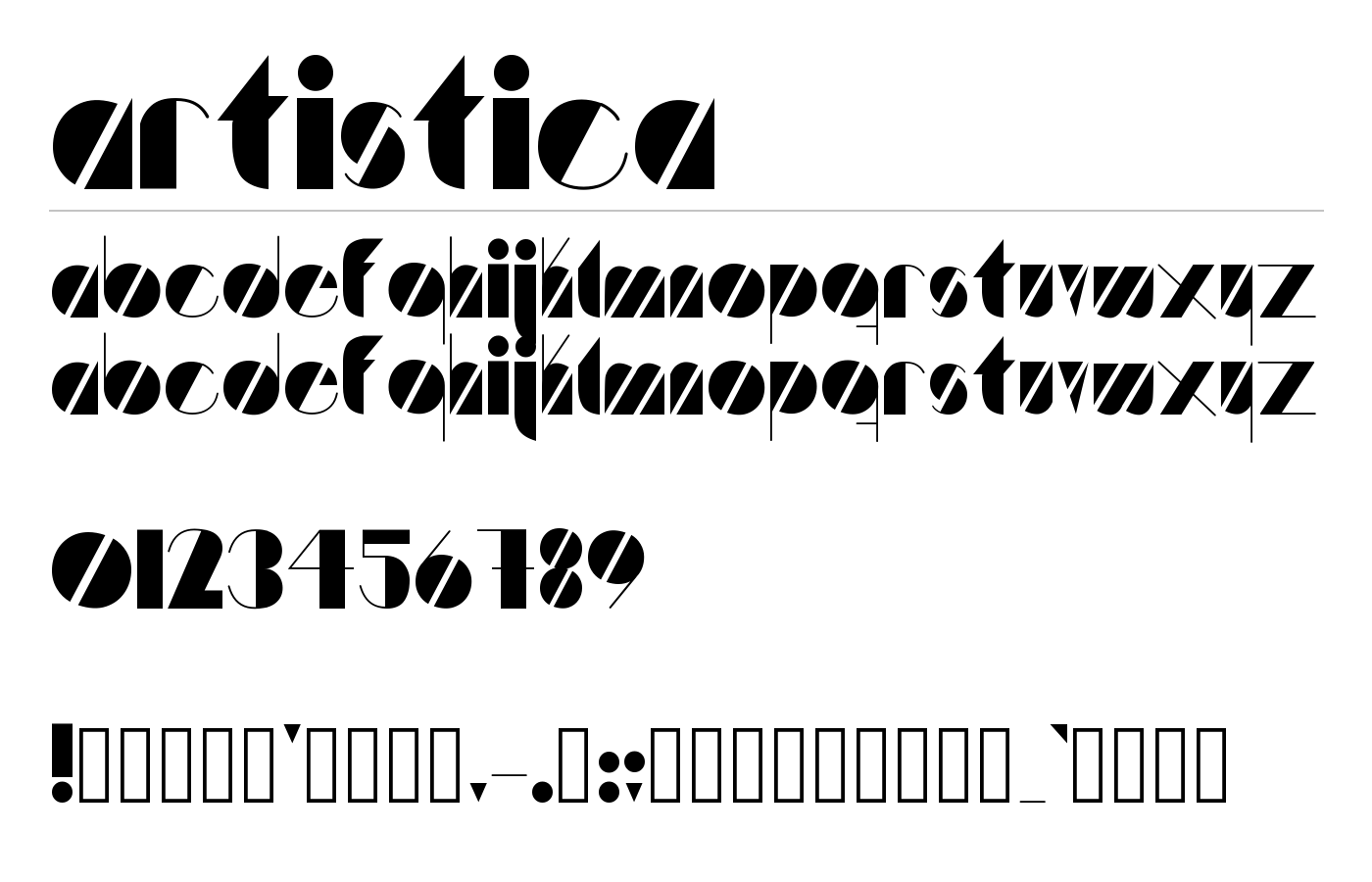
Artistica is a bold, modern display font with a striking geometric design and high contrast between thick and thin strokes. Its unique letterforms feature sharp angles and split shapes that create a futuristic, artistic vibe, making it ideal for eye-catching headlines, logos, and creative branding projects. This font stands out best where a strong, contemporary personality is desired, especially in fashion, entertainment, or avant-garde contexts.
Artistica Font
About Artistica Font